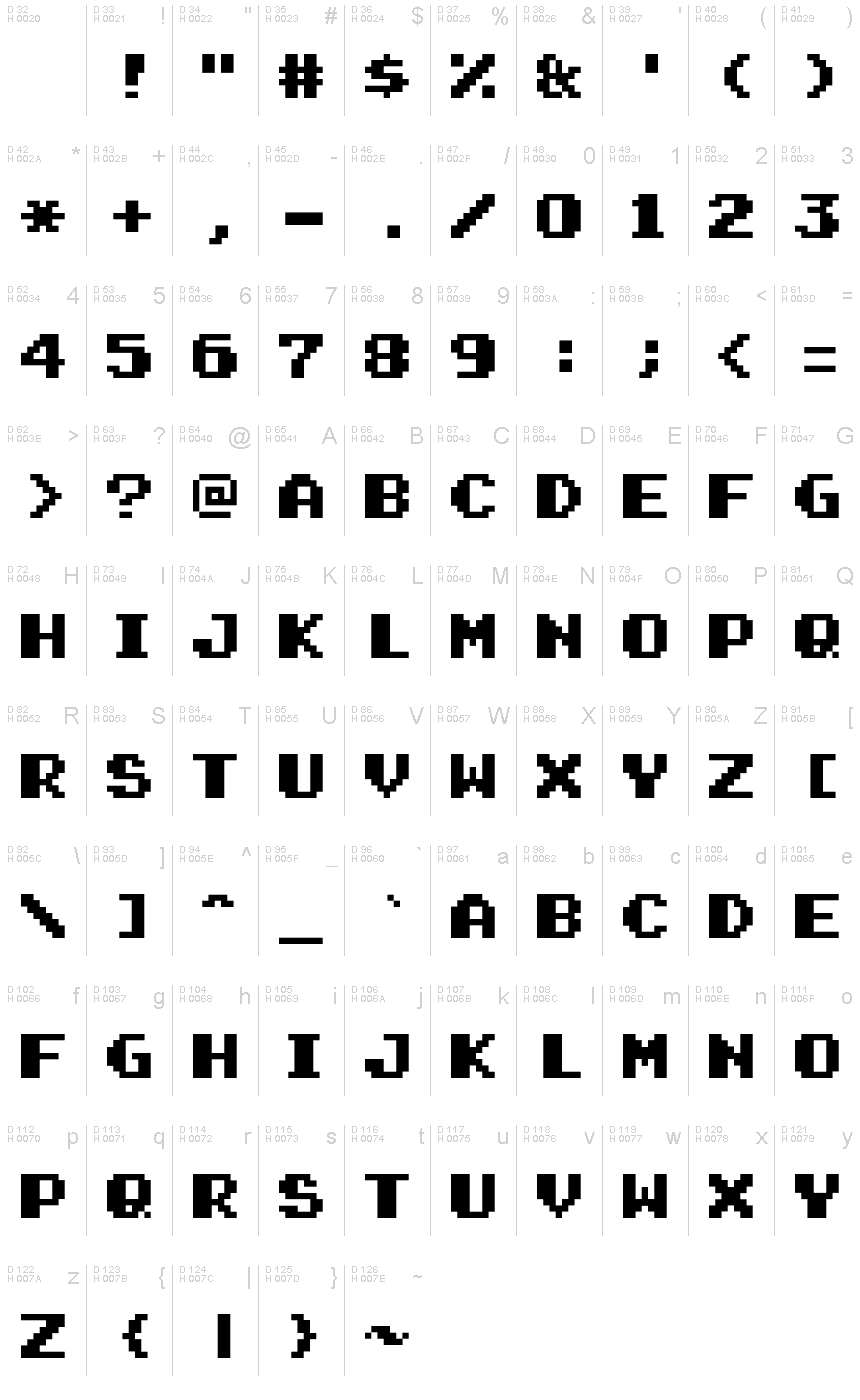
Super Mario Bros. 2 Regular
With Super Mario Bros. 2, TheWolfBunny has created an extra-bold and expanded bitmap font that takes us back to the glory days of pixelated gaming. This retro font is perfect for projects that celebrate the nostalgic feel of classic video games or require a playful and quirky touch. From invitations to themed parties, arcade game posters, or gaming blogs, Super Mario Bros. 2 adds a touch of fun and personality to any design. With its bold lines and chunky characters, this font is sure to make your text stand out in a sea of bland typography.
It's no dream! A font based on Super Mario Bros. 2 for the NES (The USA version) is finally here! And there's also unicodes, along with characters for Latin, Greek, and Cyrillic!
“Super Mario Bros. NES, which is based on “Arcade Classic, which is based on “KonaM” by “igorcbarros” (https://fontstruct.com/fontstructors/show/972420/igorcbarros)
Designer description: It's no dream! A font based on Super Mario Bros. 2 is now available!
“Super Mario Bros. NES, which is based on “Arcade Classic, which is based on “KonaM” by “igorcbarros” (https://fontstruct.com/fontstructors/show/972420/igorcbarros)
Designer description: It's no dream! A font based on Super Mario Bros. 2 is now available!
“Super Mario Bros. NES, which is based on “Arcade Classic, which is based on “KonaM” by “igorcbarros” (https://fontstruct.com/fontstructors/show/972420/igorcbarros)